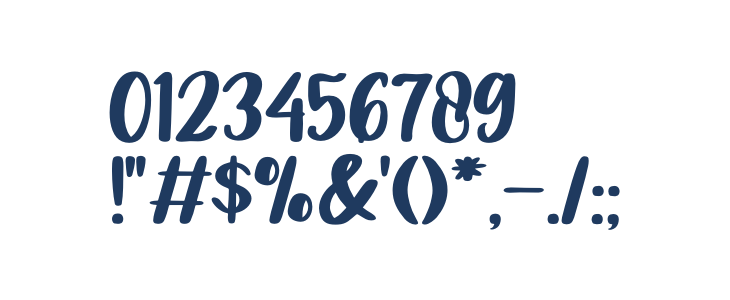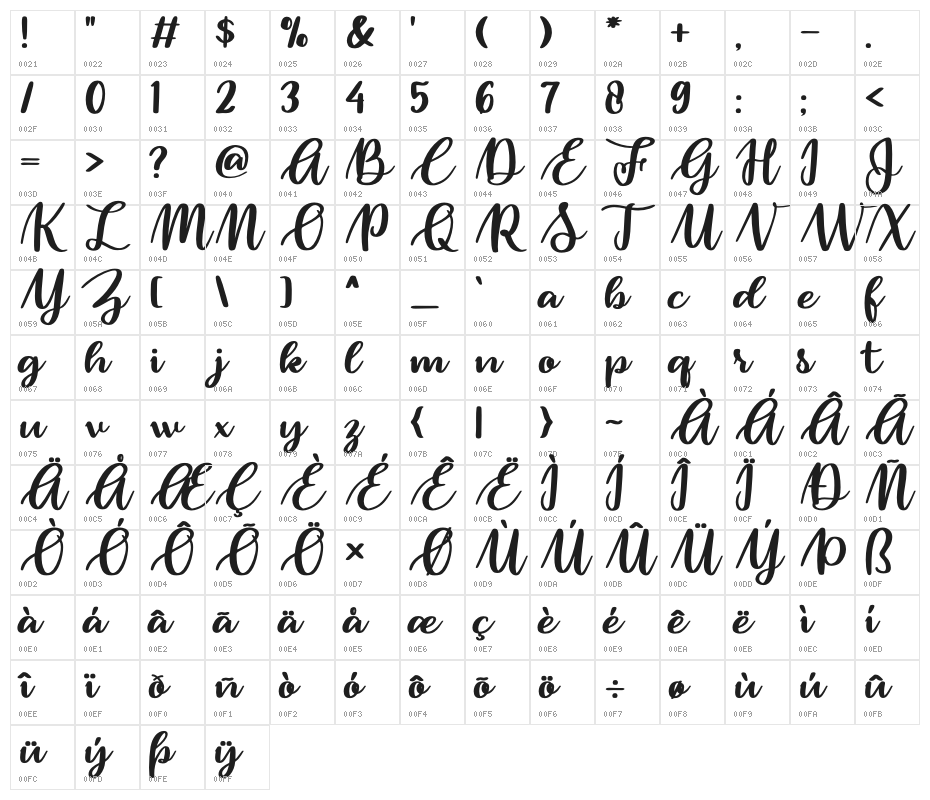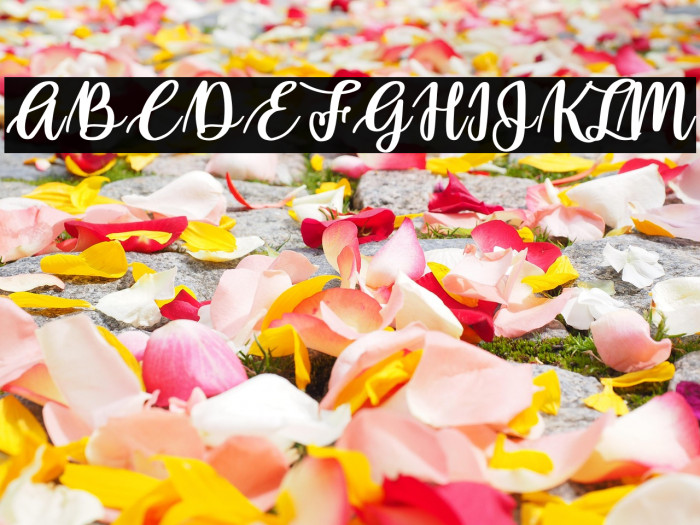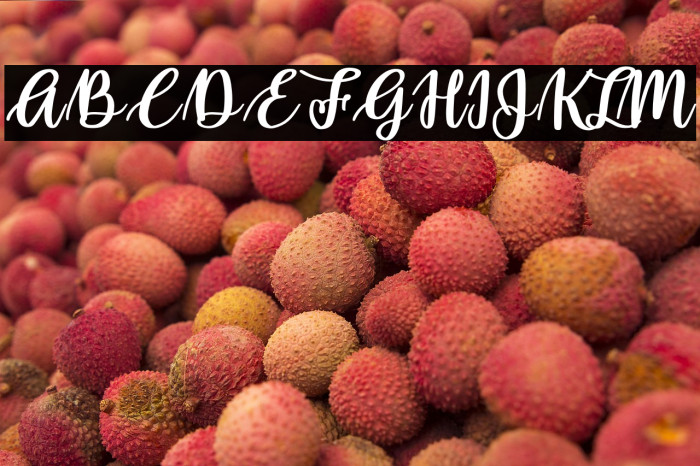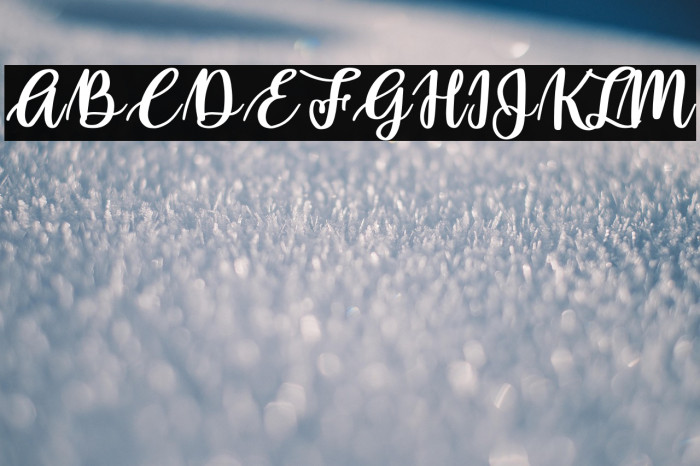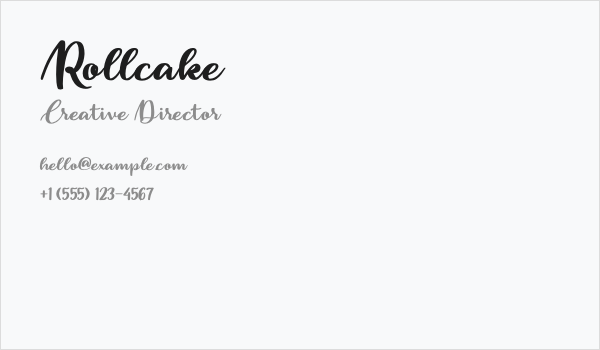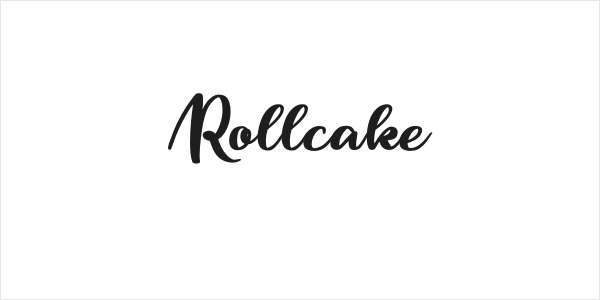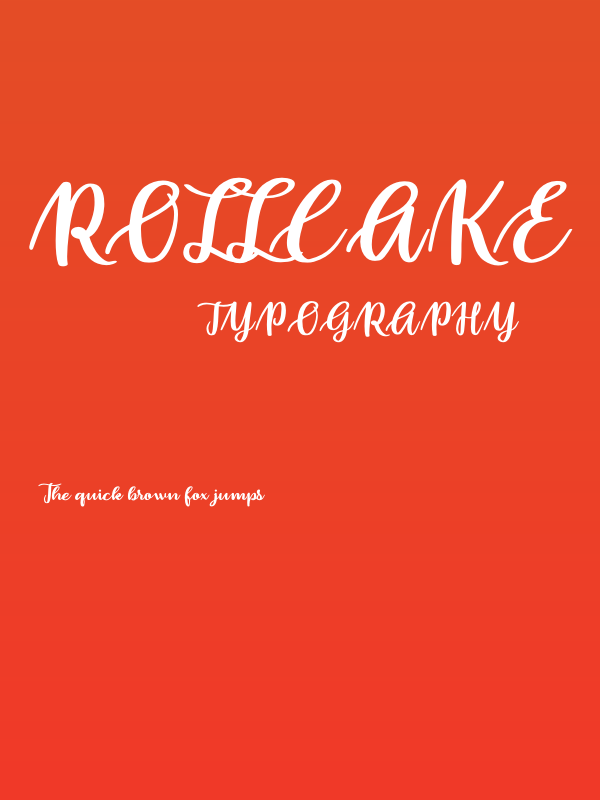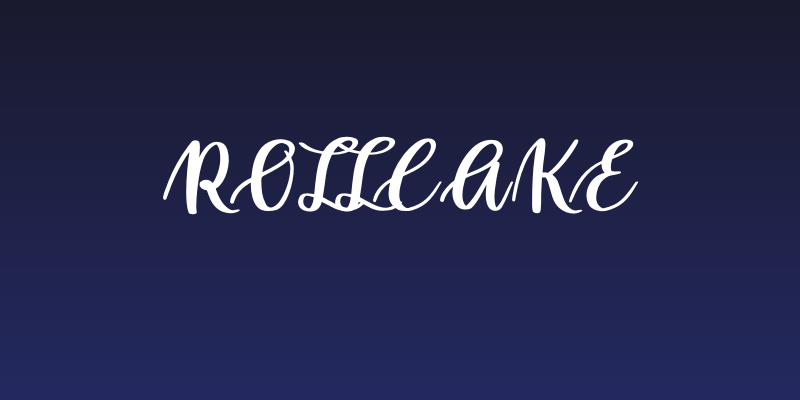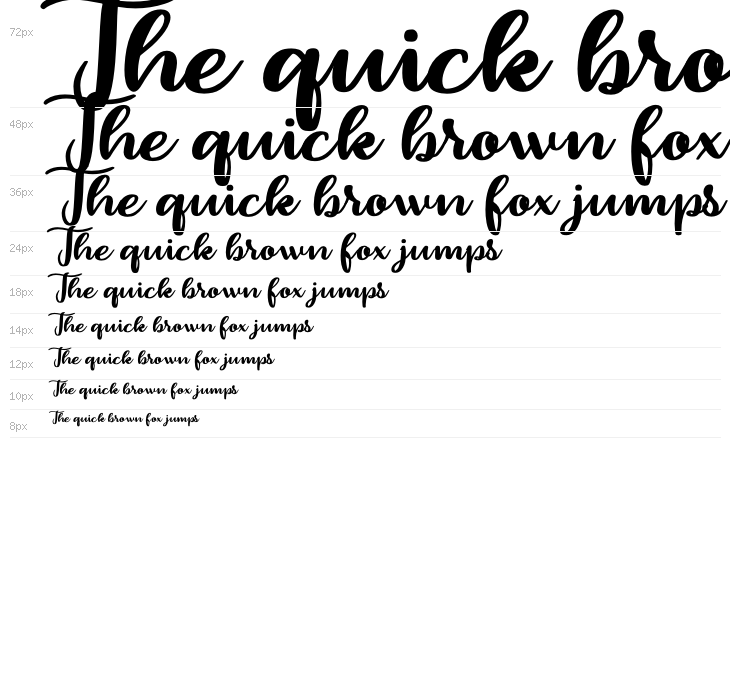
This font features a playful and energetic script style with a handwritten appearance. The letters are connected in a flowing manner, giving it a dynamic and lively feel. The uppercase letters are bold and slightly slanted, while the lowercase letters maintain a consistent flow with rounded edges. The numbers are bold and maintain the same playful style, making them stand out. The special characters are creatively designed to match the overall aesthetic, adding a whimsical touch. This font is perfect for projects that require a personal and friendly touch, such as invitations, greeting cards, and playful branding.
| Overall Style | Playful |
| Use Case | Headlines, Logos, Invitations |
| Proposed Projects | Ideal for invitations, greeting cards, playful branding, and personal projects. |